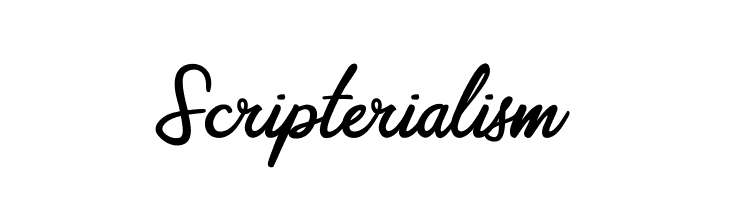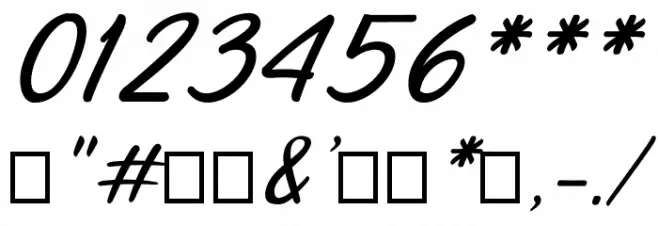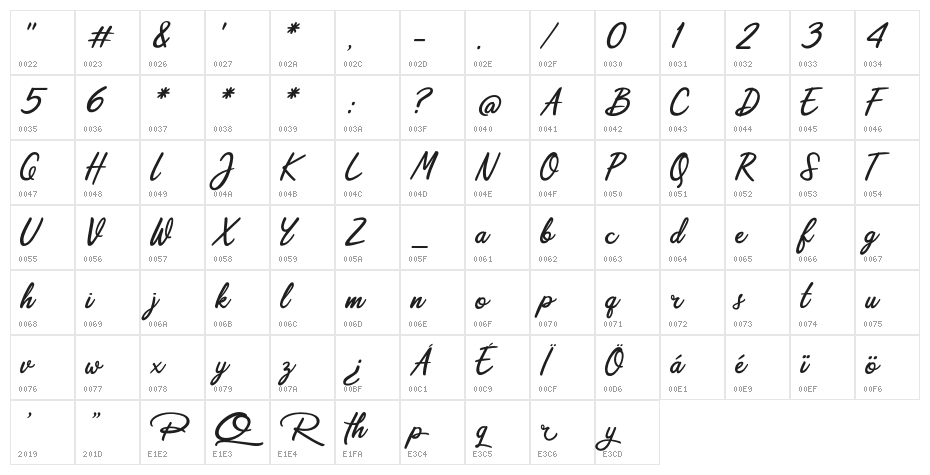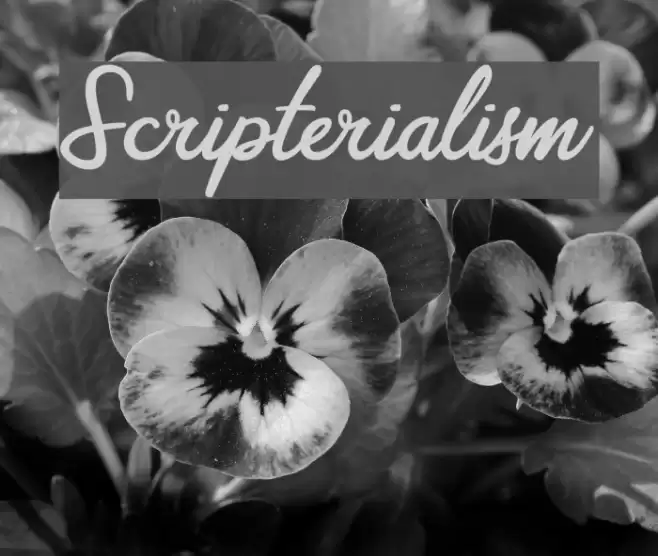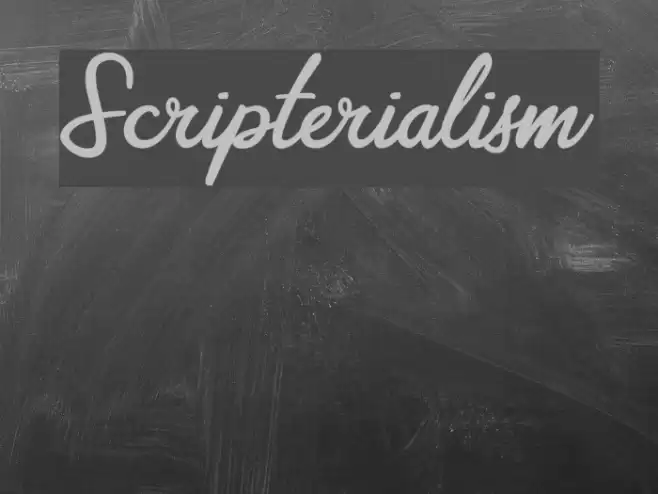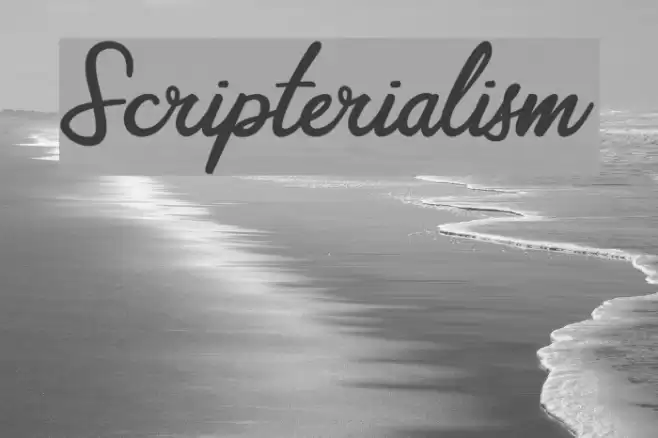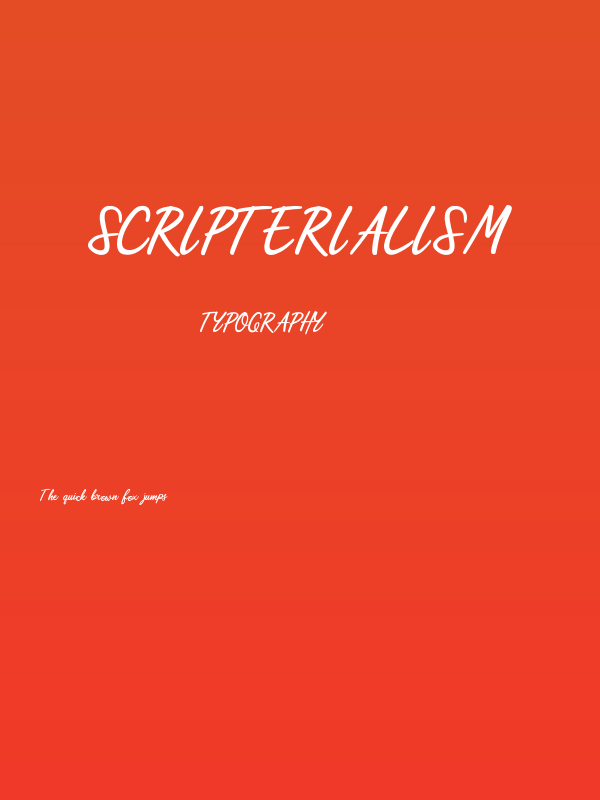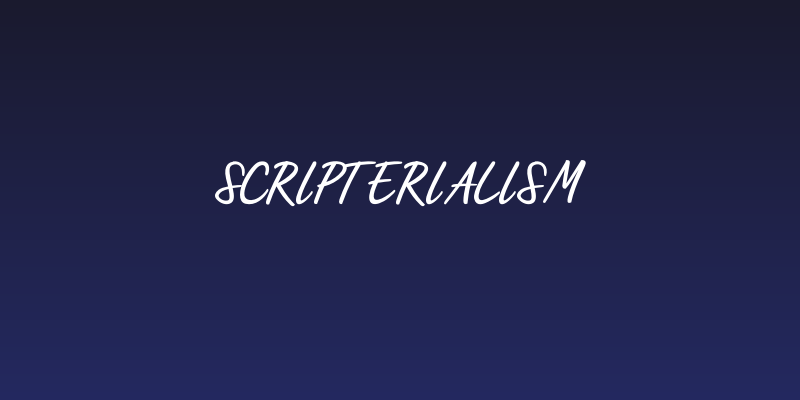
Scripterialism Font
Scripterialism Description
This font features a flowing, cursive style that mimics elegant handwriting. The uppercase letters are tall and slightly slanted, with smooth curves and a consistent stroke width. Lowercase letters maintain a similar slant and are connected, enhancing the script-like appearance. The numerals are rounded and maintain the same fluidity as the letters. Special characters are designed to complement the overall script style, adding a touch of sophistication. The font's design is both graceful and legible, making it suitable for various creative applications.
| Proposed Projects | Ideal for wedding invitations, greeting cards, personal branding, and elegant logos. |